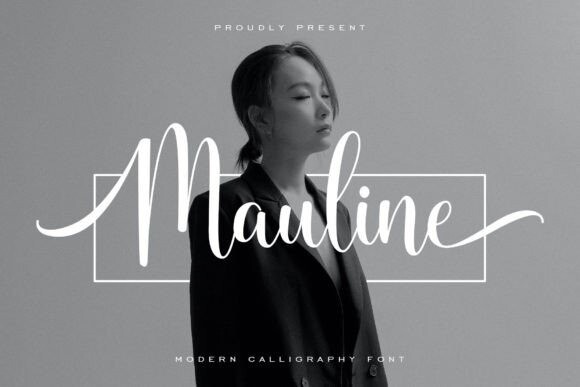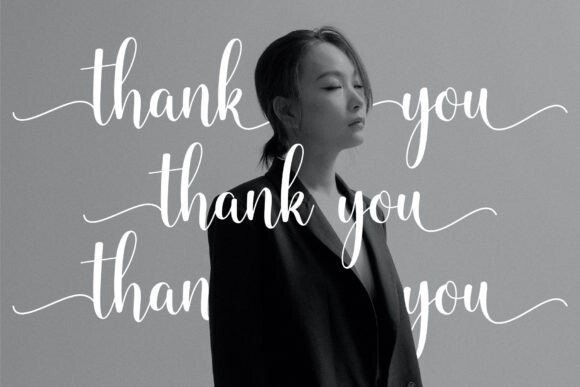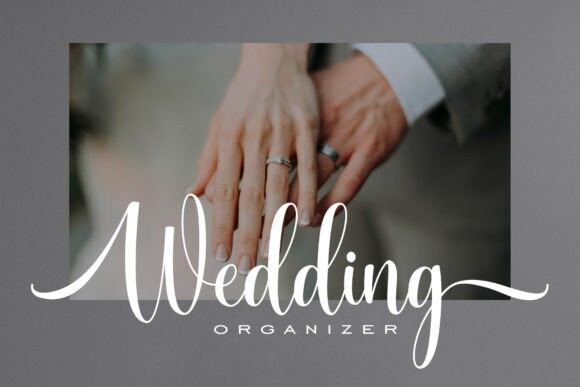
Mauline Font
Mauline is a graceful and luxurious handwritten font, inspired by a style that is modern and artistic in every curve. Add it to your creative projects and you will be astounded by the generated outcome. This font is PUA encoded which means you can access all the glyphs and ligatures with ease!